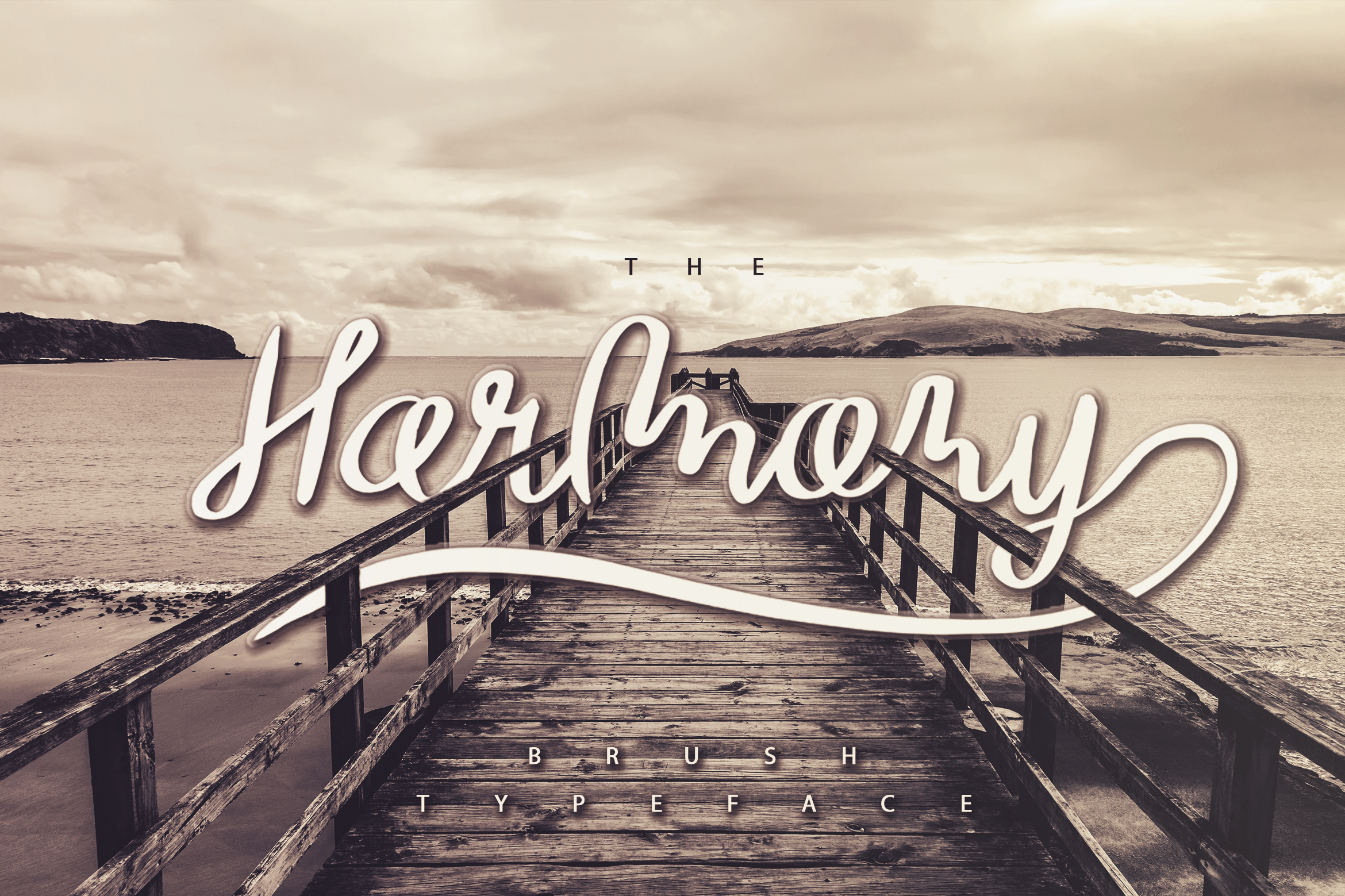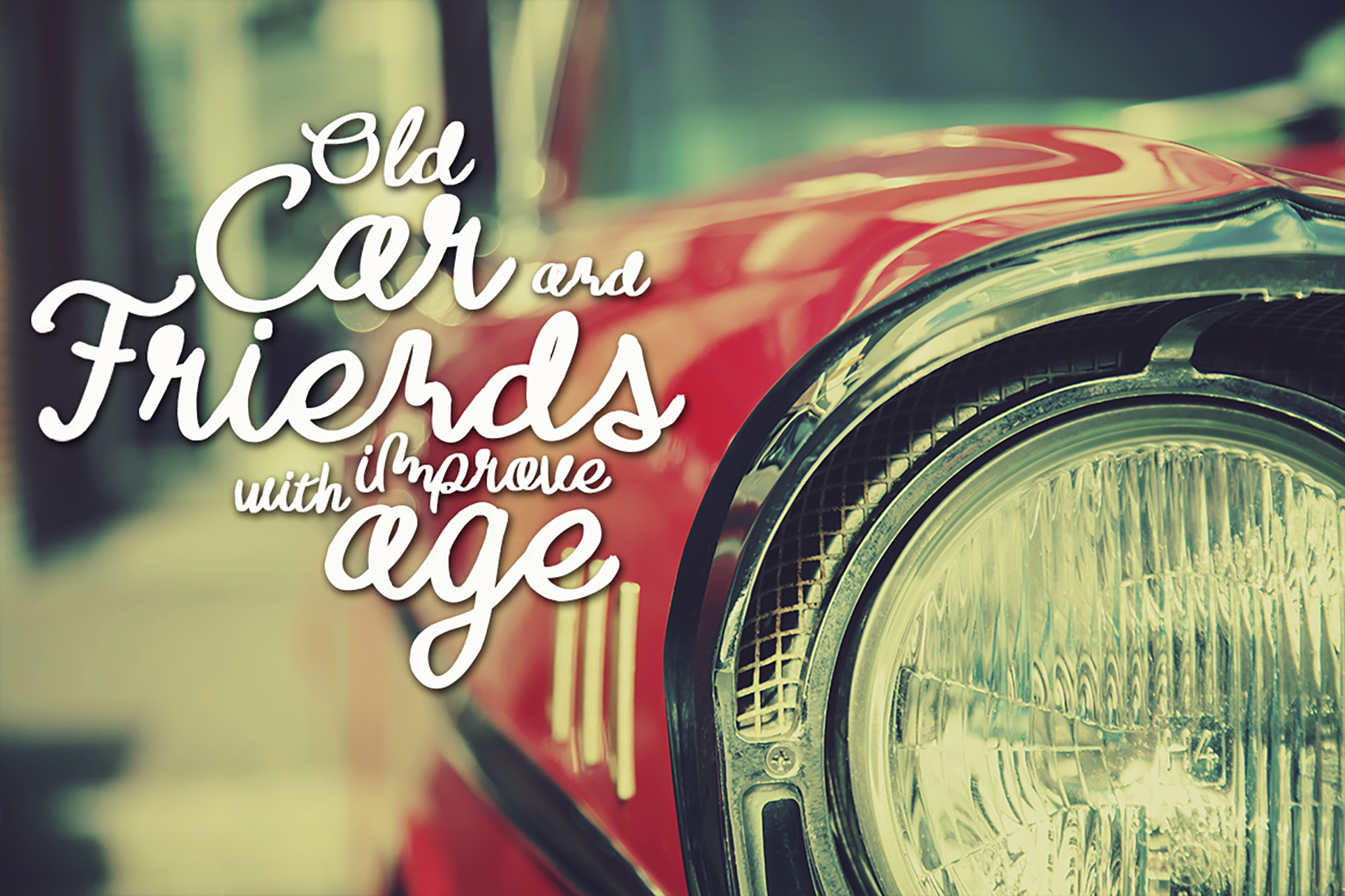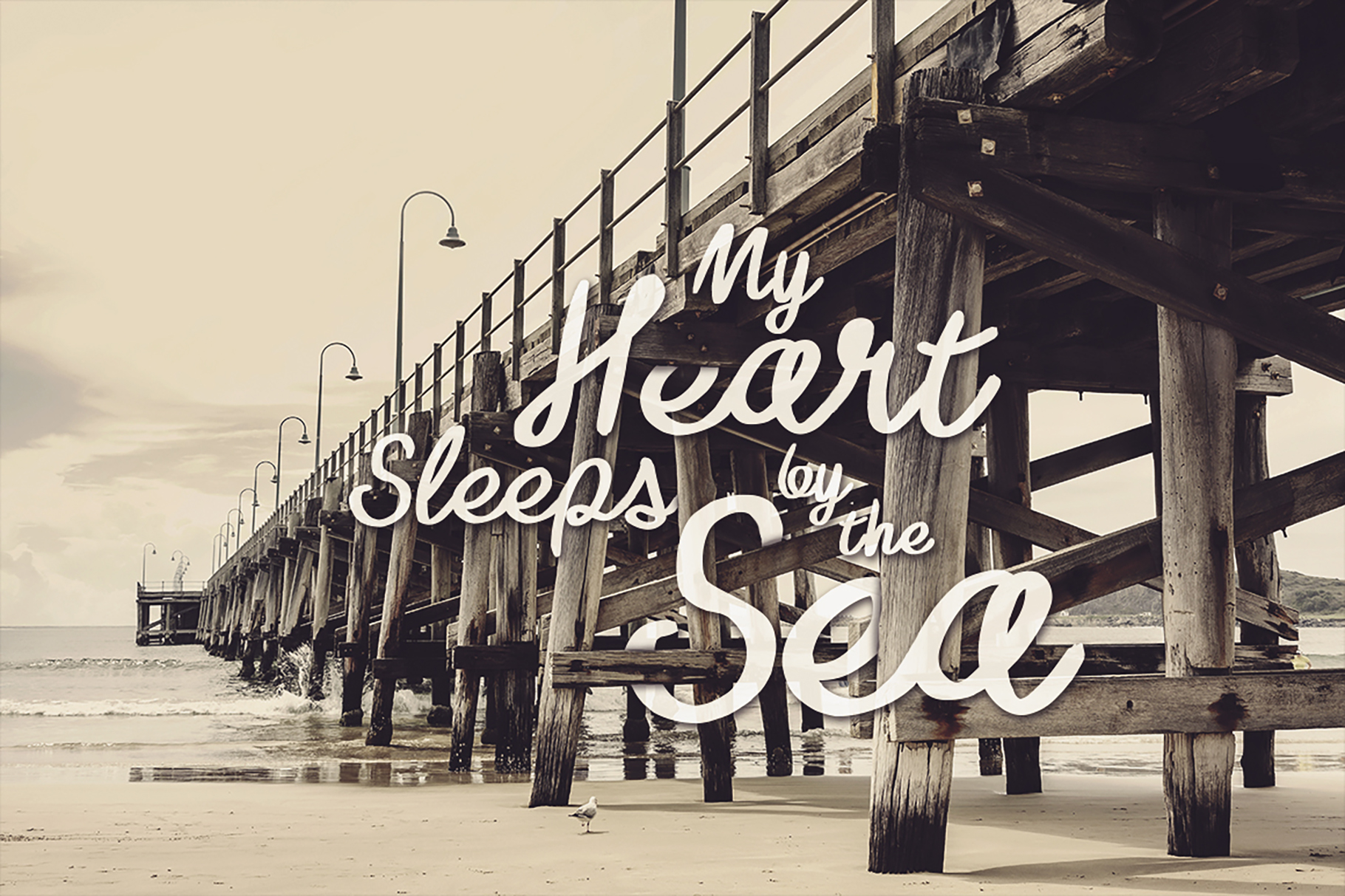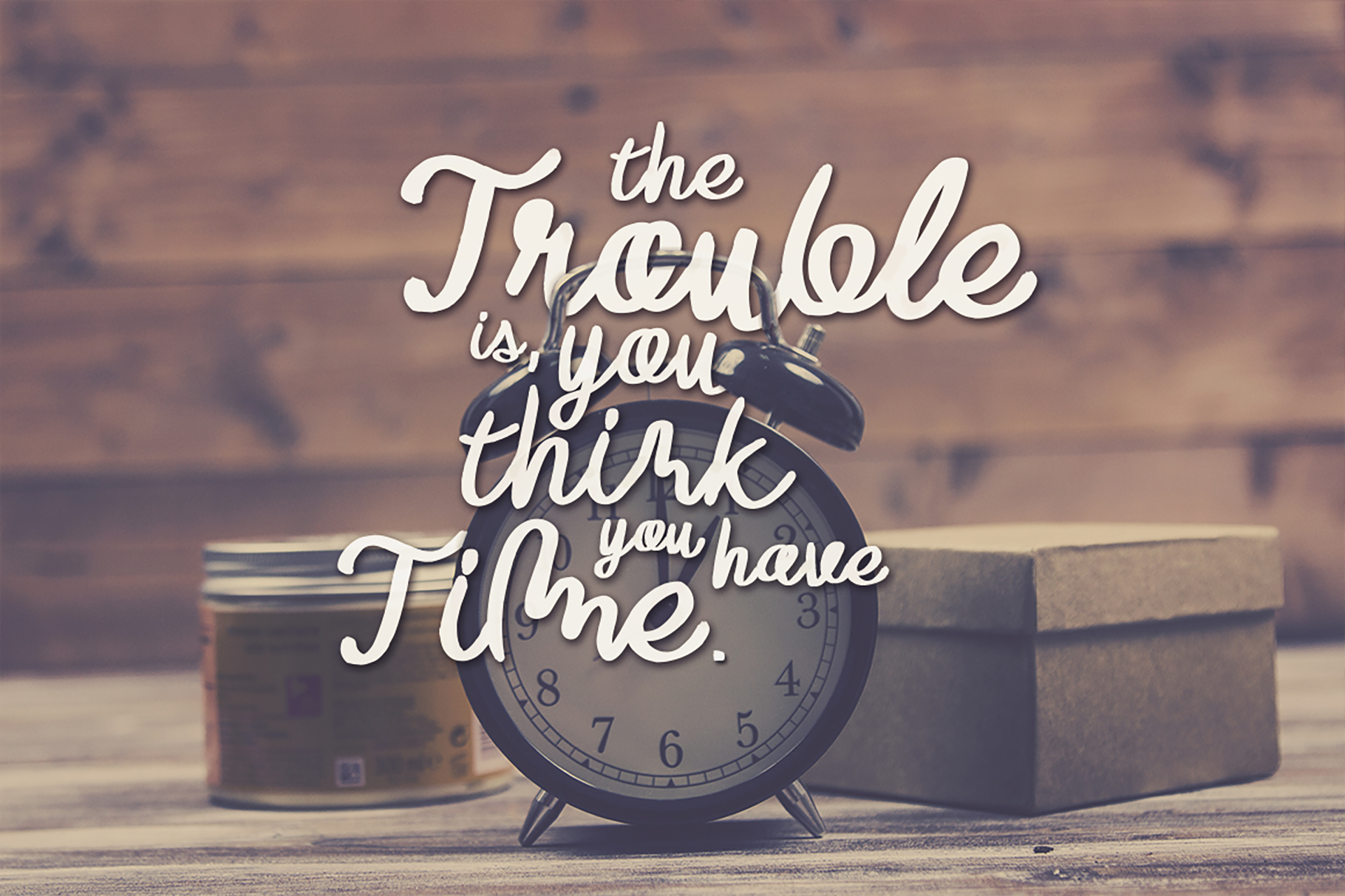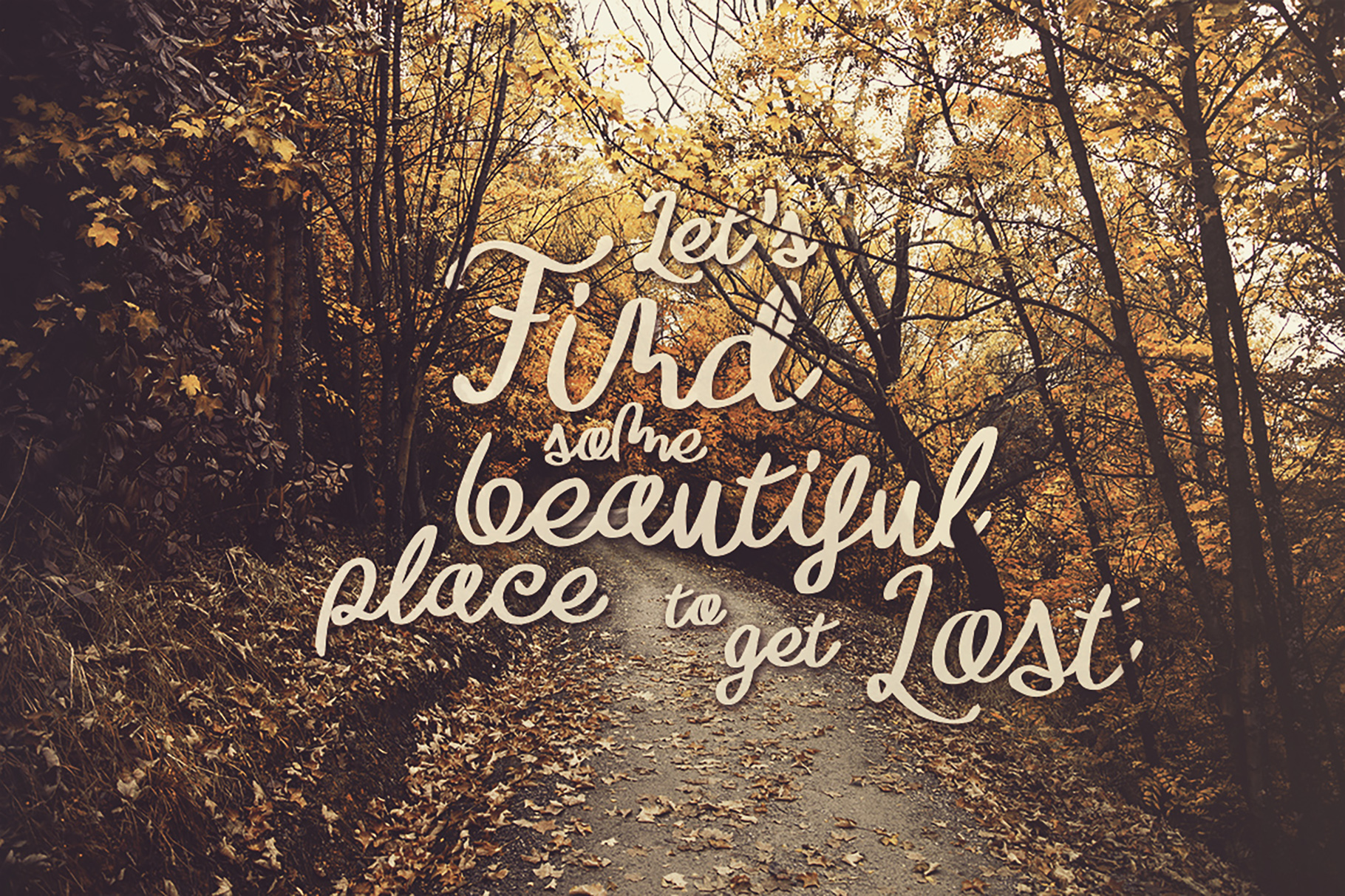
The harmony is a roundhand handmade font family inspired on Greek God’s.
All letters. All numbers. All punctuations. All extensions. All symbols
The Harmony